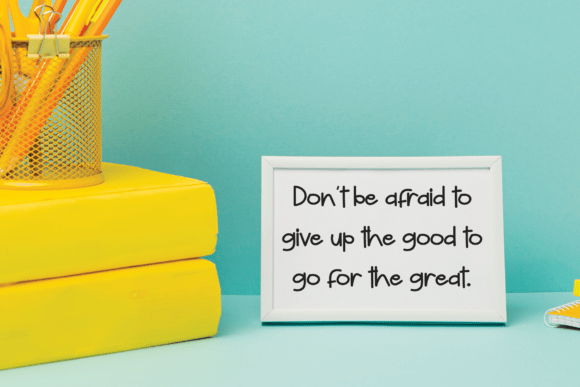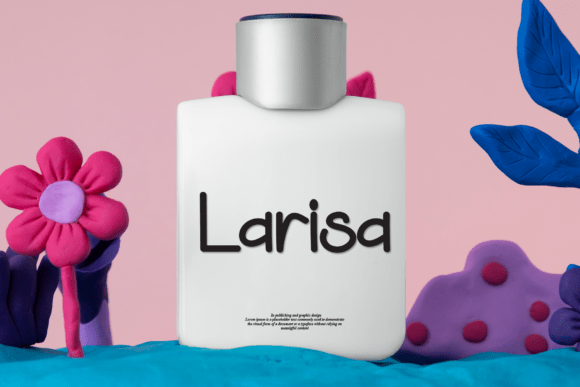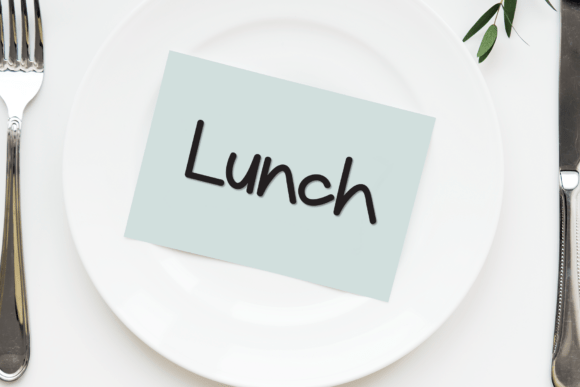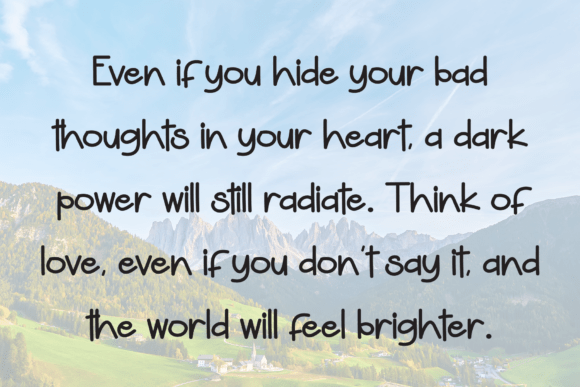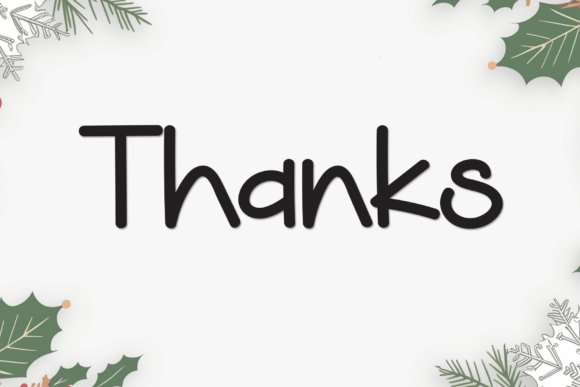
Introduction to Christmas Wishes Font
As a designer, there’s nothing quite like the thrill of brainstorming a creative project, envisioning the perfect visual identity, and bringing it to life with a well-chosen font. It’s in these moments that the right typeface can make all the difference, elevating your design from good to great. And, if you’re anything like me, you’re always on the lookout for that special something that adds a touch of magic to your work.
Enter the Christmas Wishes Font, a delightful sans-serif display font that embodies the spirit of the season. With its natural, friendly handwriting feel and slightly “tall” and thin structure, this high-quality design resource is sure to add a human touch to any project. Whether you’re working on a free download or a paid design, the Christmas Wishes Font is an excellent choice for adding a dash of personality to your work.
Key Features of Christmas Wishes Font
- High-quality design resource ideal for creative projects, such as holiday cards, gift tags, and festive invitations.
- Designed with a unique, festive style that captures the spirit of the holiday season.
Honest Review: Christmas Wishes Font
I recently stumbled upon the Christmas Wishes Font and was excited to dive in and see what it had to offer. As a designer, I’m always on the lookout for high-quality design resources to enhance my creative projects.
First off, let’s talk about the design itself. The Christmas Wishes Font is a beautifully crafted font that features a transparent background, making it perfect for any creative project where you want to add some festive flair. The font is also highly customizable, allowing you to adjust the size, color, and style to fit your needs.
Here are some things that work well with the Christmas Wishes Font:
- High-quality design that’s perfect for creative projects ✨
- Customizable to fit your design needs
- Only available in a single font style, which may limit its versatility ⚠️
- No bold or italic variations available
Overall, I’m impressed with the Christmas Wishes Font and would definitely recommend it to designers looking for a high-quality design resource to enhance their creative projects. Just keep in mind the limitations mentioned above and plan accordingly.
How to Use Christmas Wishes Font
To get the most out of the Christmas Wishes Font, experiment with different font sizes, colors, and arrangements. You can also combine the font with other design elements, such as images and shapes, to create a unique and creative project.
The Christmas Wishes Font is ideal for holiday-themed designs, such as Christmas cards, invitations, and gift tags. You can also use the font to create social media graphics, blog posts, and other digital content related to the holiday season.
Q: Is the Christmas Wishes Font suitable for digital displays?
The Christmas Wishes Font is designed to be legible on various digital displays, including screens, billboards, and social media platforms. However, for optimal results, we recommend using the font at a size of 24 points or larger to ensure readability. Additionally, you may need to adjust the font’s color and background to ensure maximum visibility on digital displays.